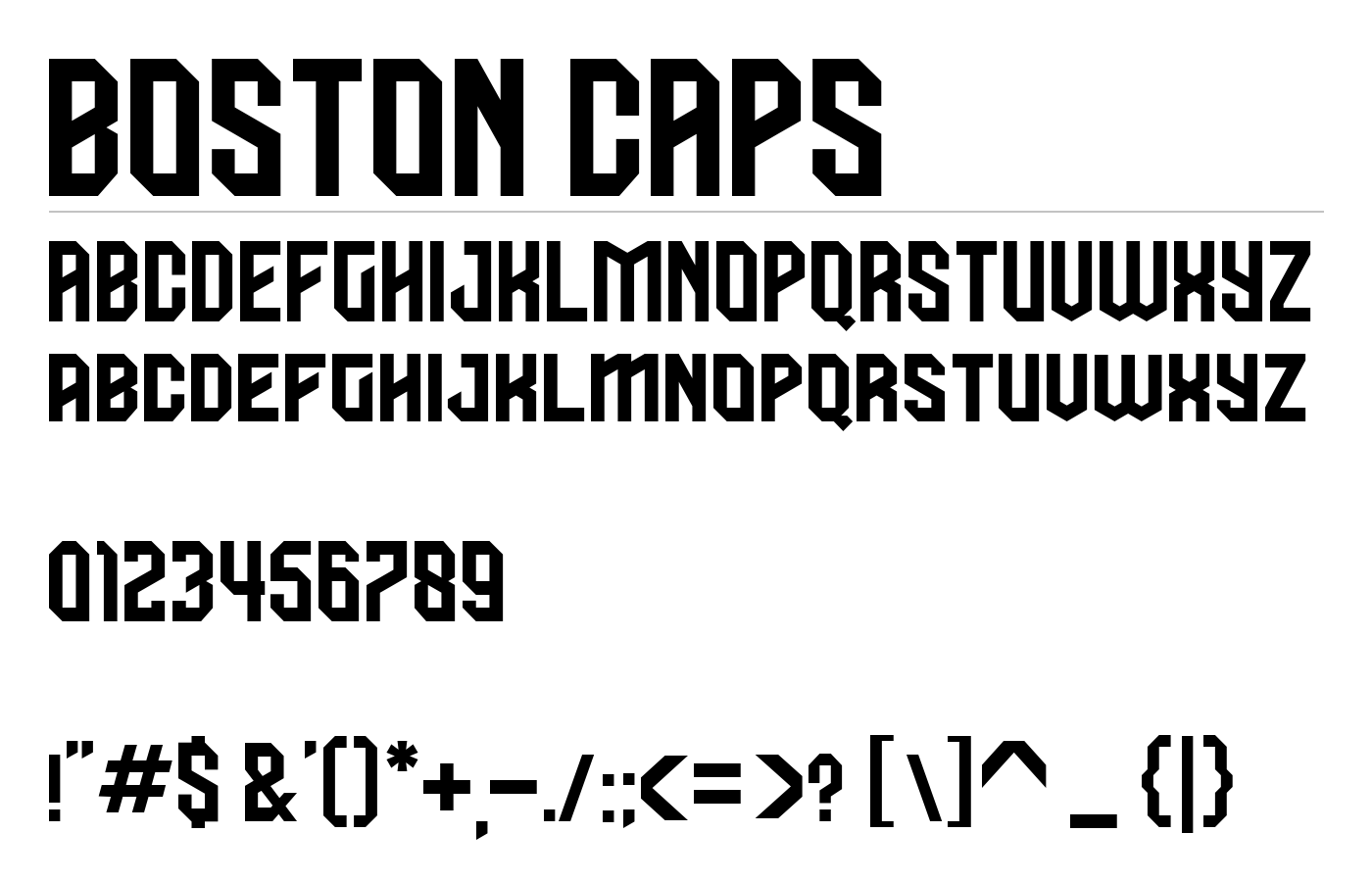
Boston Caps is a bold, geometric sans serif font distinguished by its sharp, angular letterforms and blocky structure, designed exclusively in uppercase. Its condensed width and even stroke weight create a strong, modern appearance with a slightly industrial vibe, making it ideal for impactful headlines, logos, and branding projects that seek a confident, urban edge. This font works best where attention-grabbing, assertive typography is needed, especially in sports, fashion, and contemporary editorial design contexts.
BOSTON CAPS Font
About BOSTON CAPS Font